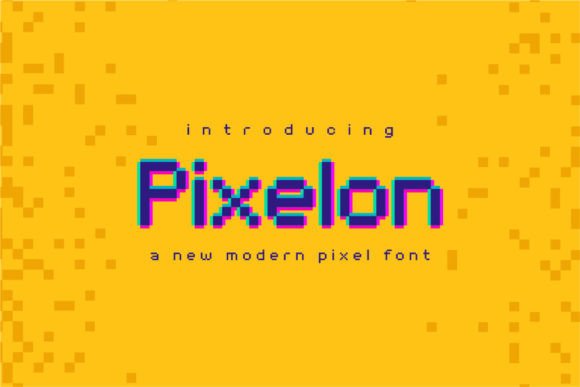
Pixelon: The Ultimate 8-Bit Display Font for Retro Designs
Unlike generic pixel fonts that often suffer from jagged edges or poor readability, Pixelon strikes a perfect balance between retro aesthetics and modern usability. It stands out as a premium Display font because it maintains its crisp form even at smaller sizes, making it versatile for various applications. In this review, we will explore why this free Display font for Fonts libraries is becoming a favorite among creatives who value both style and functionality.
Design & Style Analysis
The visual personality of Pixelon is defined by its strict adherence to the grid system typical of early computing graphics. Every curve is replaced with a straight line, creating a geometric yet playful appearance. As a professional Fonts font, it avoids the messy look of low-resolution bitmap text, offering clean lines that scale beautifully across digital and print media.
Letterforms and Weight
The letterforms in Pixelon are bold and substantial, giving them a strong presence on the page. The weight is consistent throughout the alphabet, ensuring that headlines look uniform and impactful. When compared to other best Display fonts for use case scenarios involving gaming or tech, Pixelon offers a slightly more refined edge, avoiding the overly chunky feel of older alternatives.
Spacing and Readability
One of the most critical aspects of any typeface is how it handles white space. Pixelon features generous kerning and tracking that prevent the letters from clumping together, which is a common issue with blocky styles. This thoughtful spacing ensures that even complex words remain legible, making it a superior choice over many competing free Display fonts.
Best Uses for Pixelon
Because of its unique aesthetic, Pixelon excels in specific design contexts where a nostalgic vibe is required. Its versatility allows it to function effectively in both digital interfaces and physical merchandise.
Pixelon for Logo Design
Creating a memorable brand identity often requires a distinct visual hook. Pixelon for logo design provides an instant connection to gaming culture, technology startups, or creative agencies. The blocky nature of the letters creates a sturdy foundation for icons and emblems, ensuring the logo remains recognizable even when scaled down to a favicon size.
Pixelon for Branding
Consistency is key to successful branding. Using Pixelon for branding allows businesses to establish a cohesive voice across their marketing materials. From business cards to social media profiles, the font's distinctive shape reinforces a theme of innovation and fun. It transforms standard corporate communication into something engaging and memorable.
Pixelon for Posters and Social Media
When designing promotional materials, you need typography that grabs attention immediately. Pixelon for posters/social media/packaging is ideal for event flyers, album covers, and product packaging. The high contrast of the black blocks against a light background ensures maximum visibility, while the retro feel adds a layer of artistic flair that standard sans-serifs lack.
Pixelon for Wedding Invitations
While it may seem unconventional, Pixelon for wedding invitations/cards/typography can create a unique "gamer" or "tech-themed" wedding aesthetic. Couples looking to break away from traditional script fonts can use Pixelon to create modern, geometric invitations that reflect their shared interests. It proves that a premium Display font can be adapted for unexpected and personal occasions.
Font Pairing & Combinations
Selecting the right companion typeface is essential to balancing the boldness of Pixelon. Since this font is highly decorative, it works best when paired with neutral, clean typefaces that do not compete for attention.
A common question designers ask is what fonts pair well with Pixelon? The answer lies in simplicity. A clean sans-serif like Montserrat or Open Sans provides the perfect counterbalance, allowing the display font to shine in headlines while the body text remains easy to read. Another excellent strategy involves using a monospaced font for subheadings to reinforce the coding or terminal aesthetic without overwhelming the layout.
For those looking for a Pixelon font pairing guide, consider combining it with a humanist serif for a sophisticated retro-modern look. This combination creates depth and texture, elevating the design from a simple game interface to a polished editorial piece. Finding the best font combinations with Pixelon ultimately depends on the mood you wish to convey, but sticking to minimal companions usually yields the best results.
I advise testing the font in black and white first to ensure the contrast is sufficient. Check small-size readability, as pixel fonts can sometimes blur when scaled down too much. Review the spacing carefully, especially in all-caps headers, to maintain a professional look. While it is a free Display font for Fonts enthusiasts, treating it with the same care as a paid asset will yield the best results. By following these guidelines, you can leverage the full potential of Pixelon in your next creative endeavor.